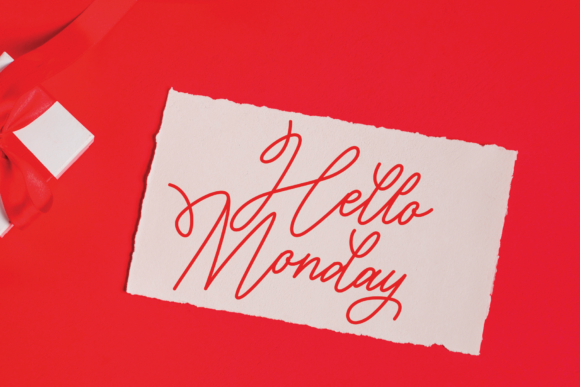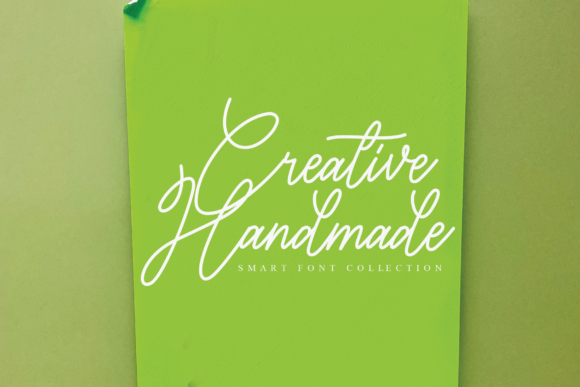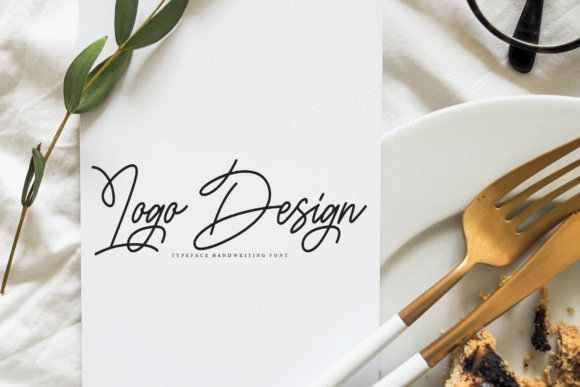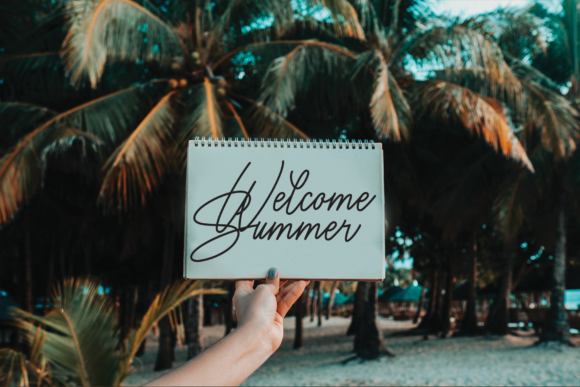
Introduction to Signature Chocolate Font
Signature Chocolate is a thin and a bit asymmetrical handwritten font.
No matter the topic, this font will be an incredibly asset to your fontsโ library, as it has the potential to elevate any creation .
Key Features of Signature Chocolate Font
Why Choose Signature Chocolate Font?
Signature Chocolate Font offers exceptional quality and versatility, making it a valuable addition to your design toolkit. Whether you’re creating for personal projects or commercial use, Signature Chocolate Font delivers professional results.